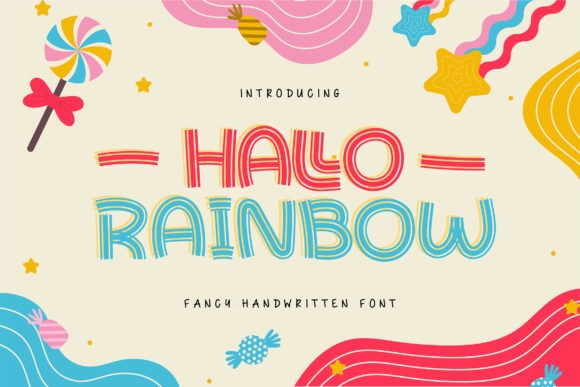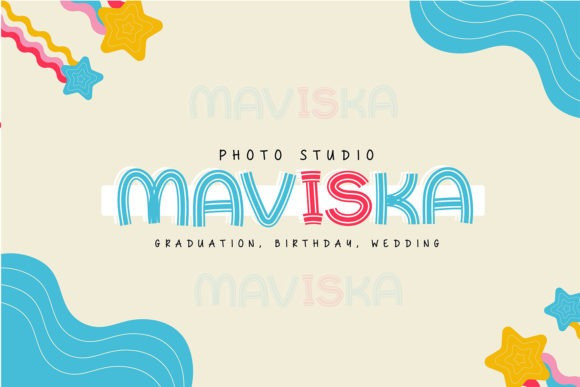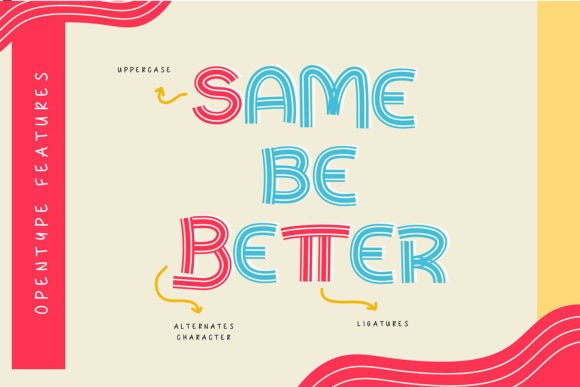
Hallo Rainbow Font
Hallo Rainbow is a cute and whimsical display font. This font is PUA encoded which means you can access all of the glyphs and swashes with ease!